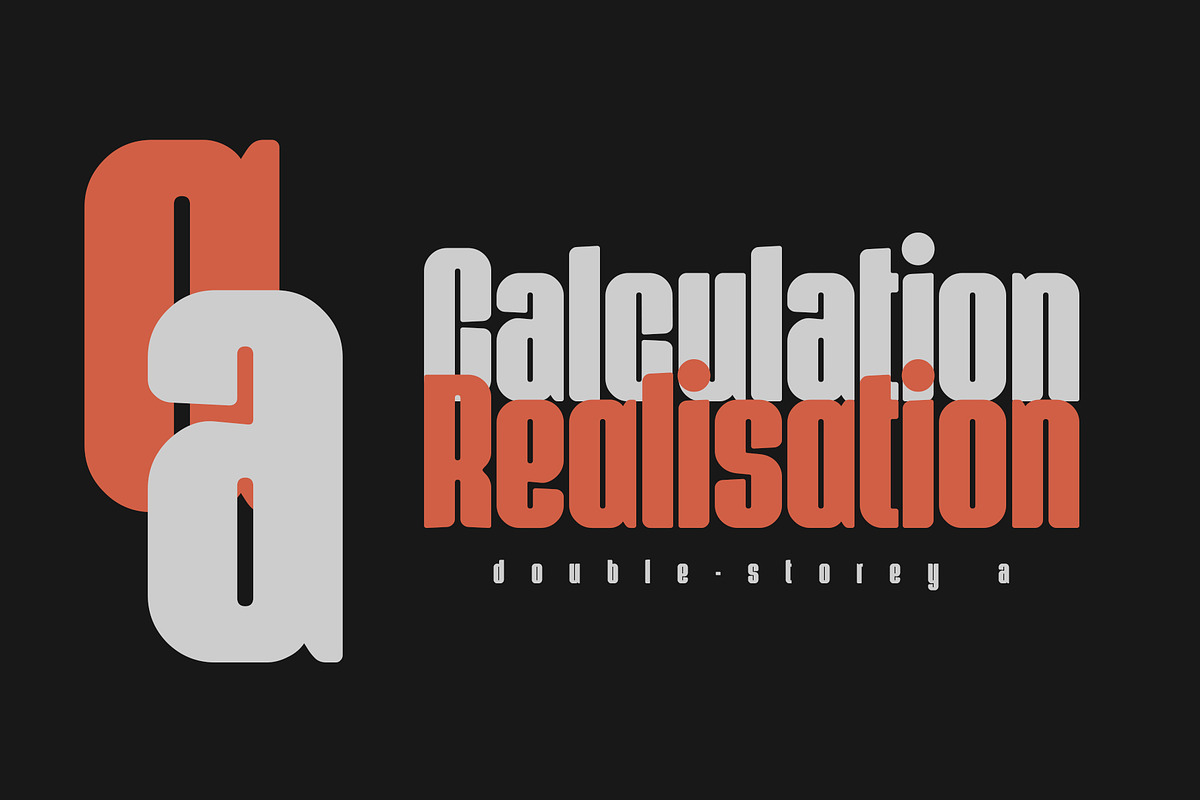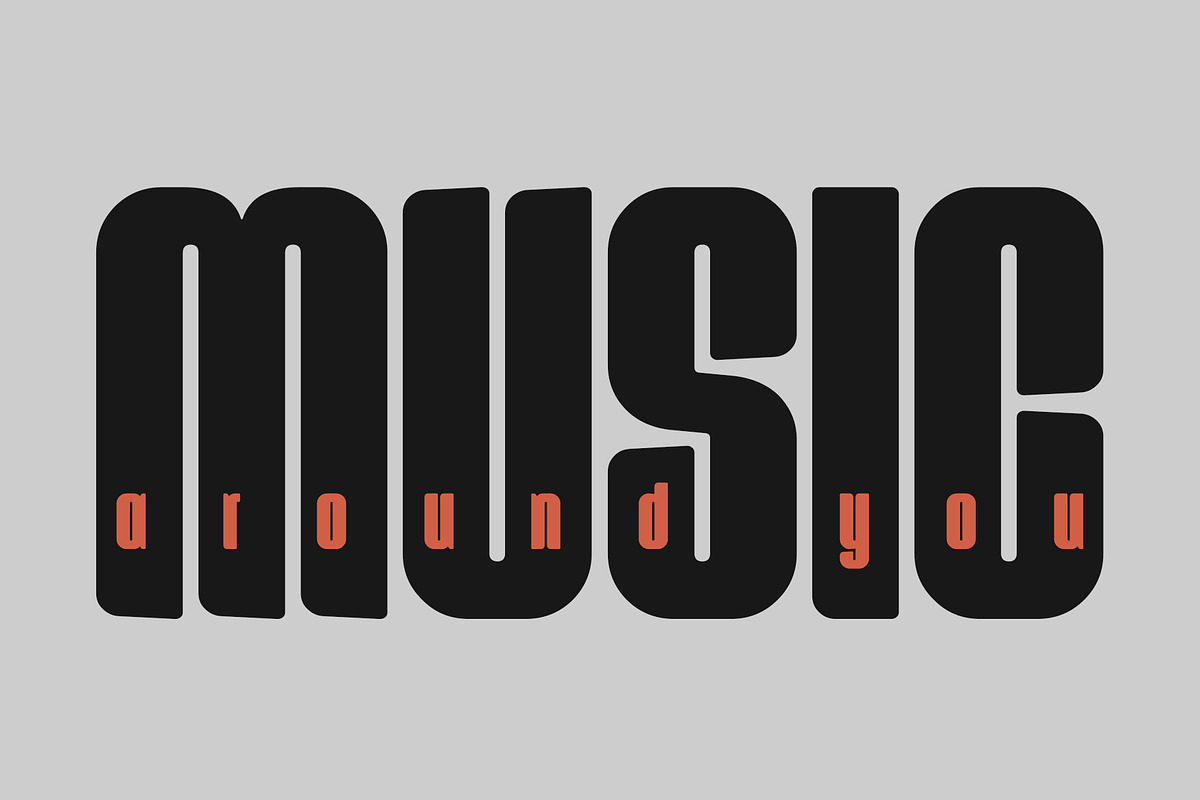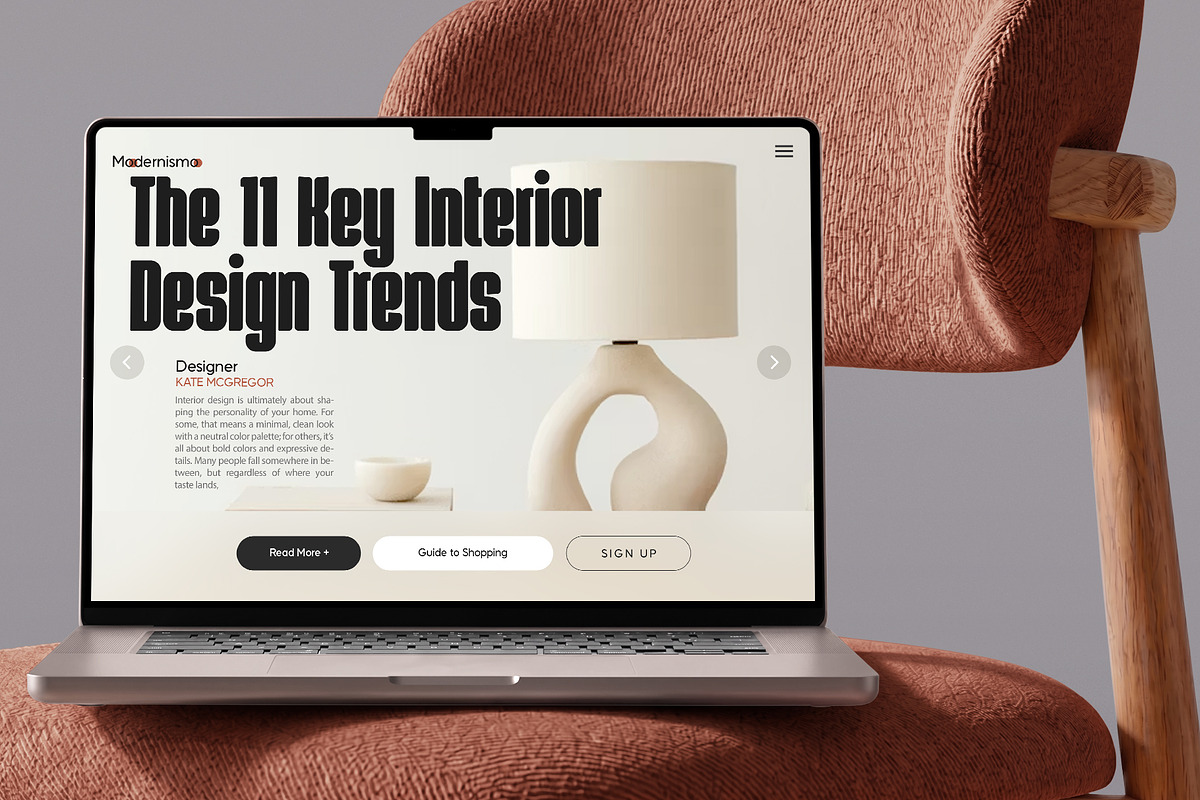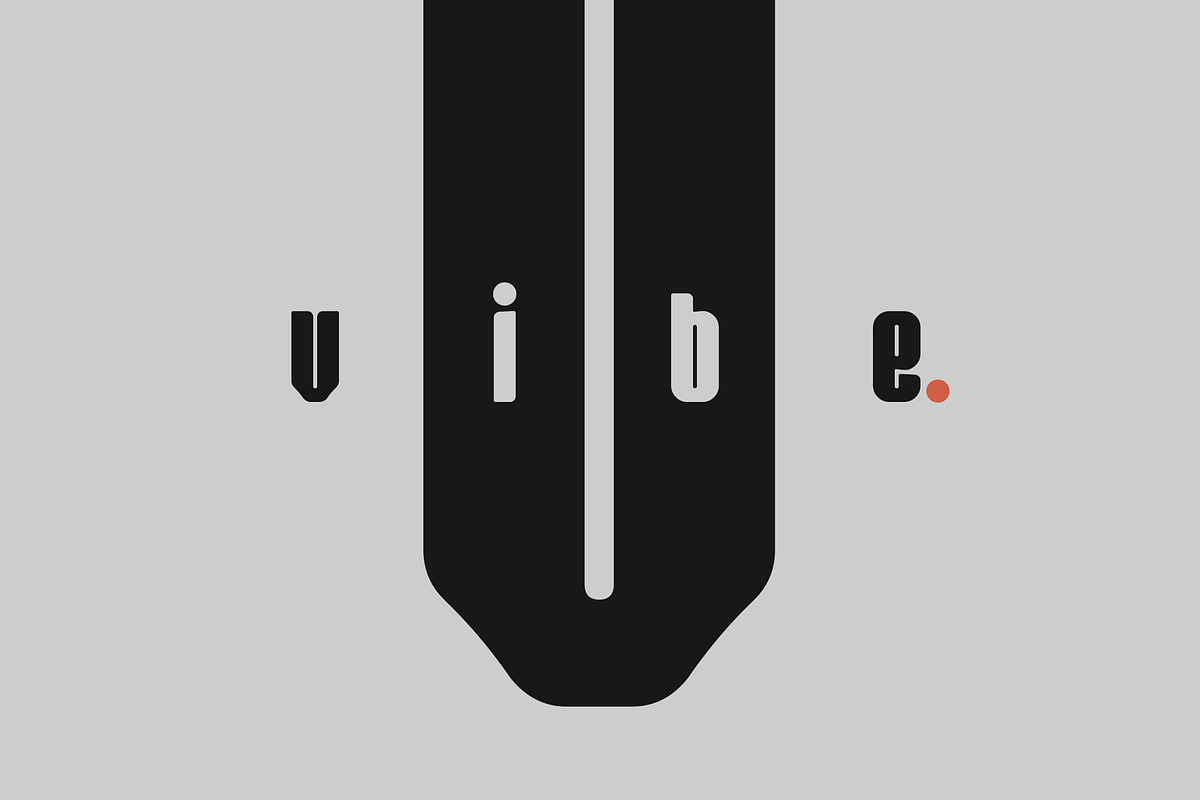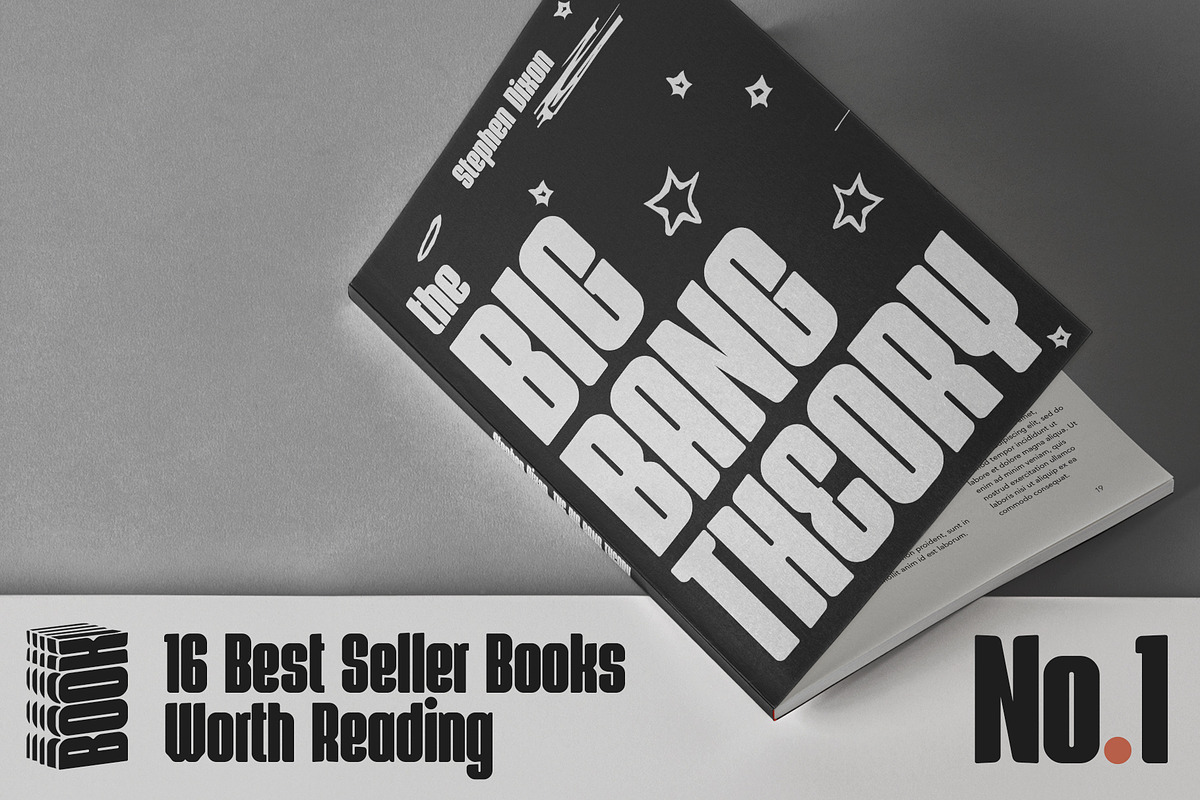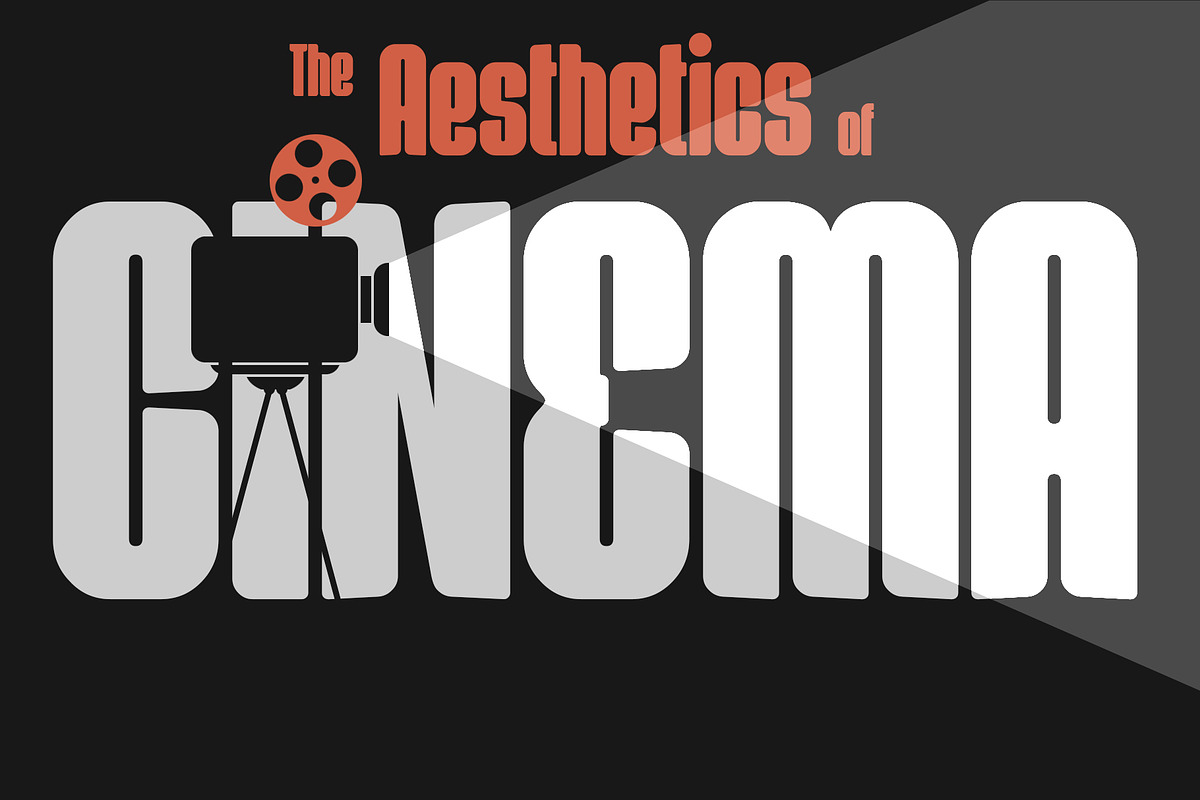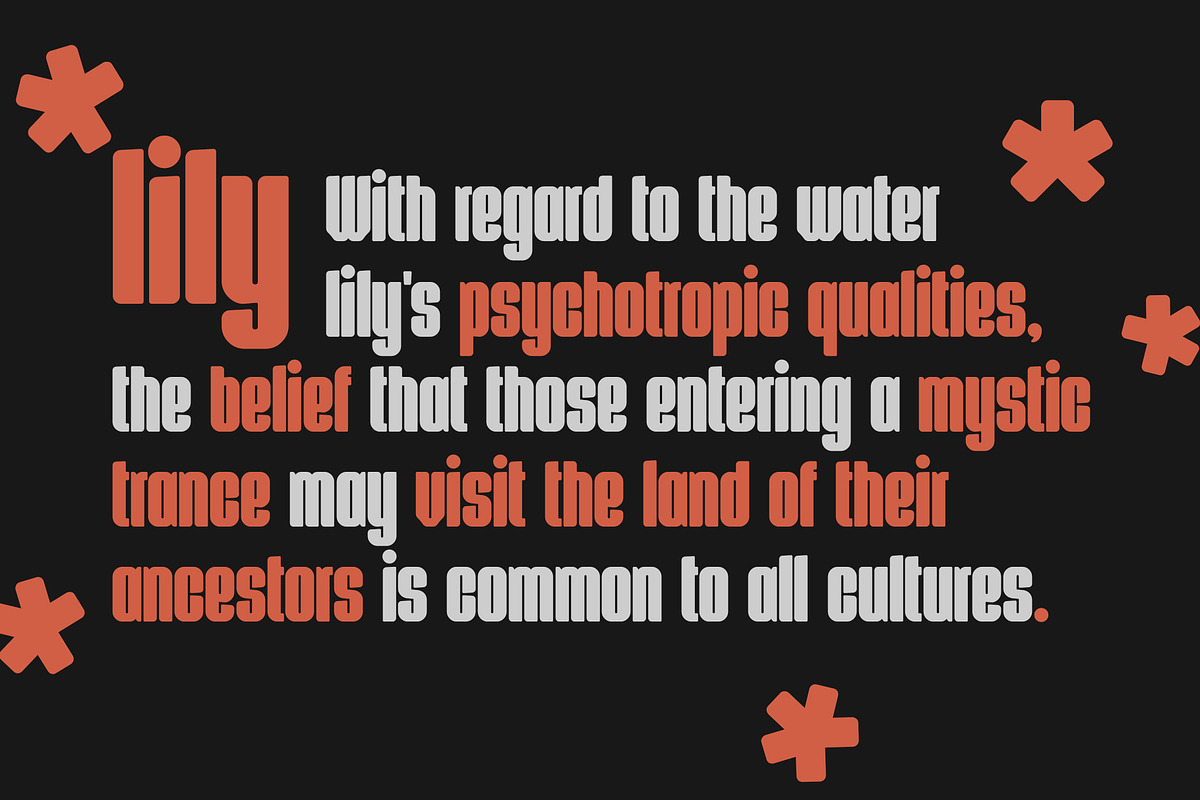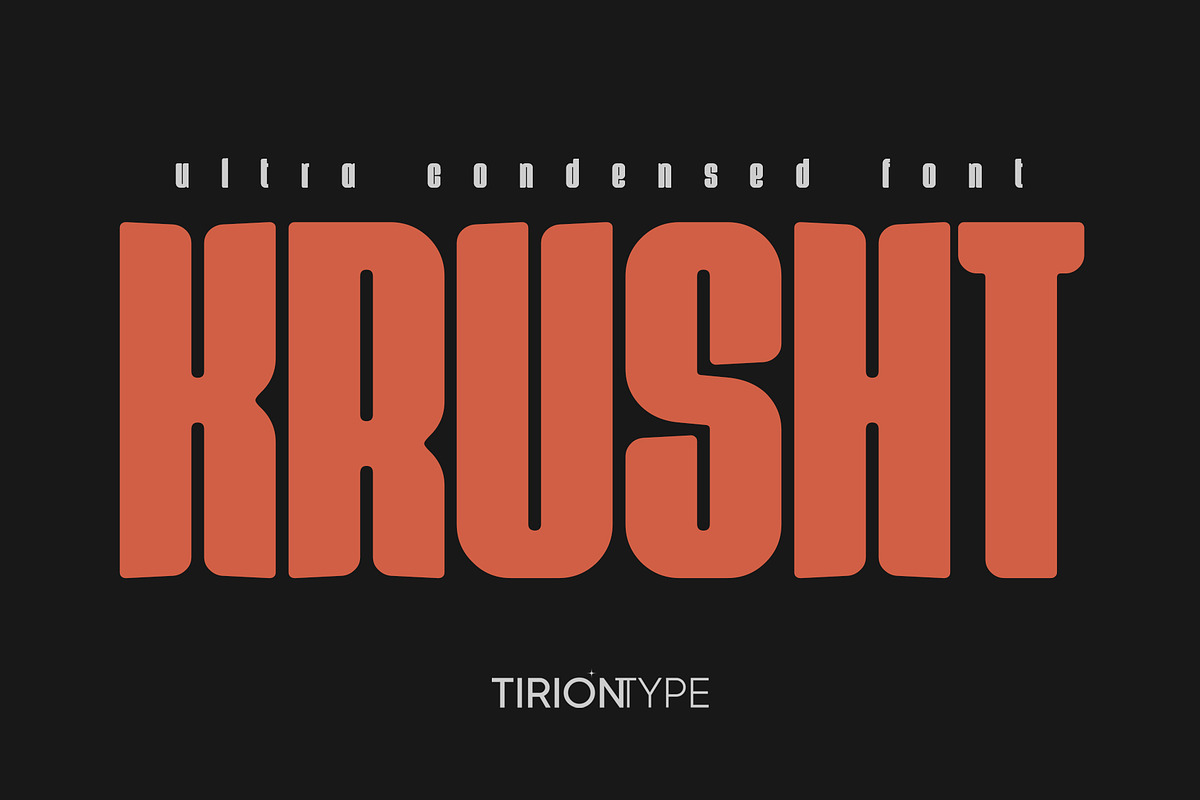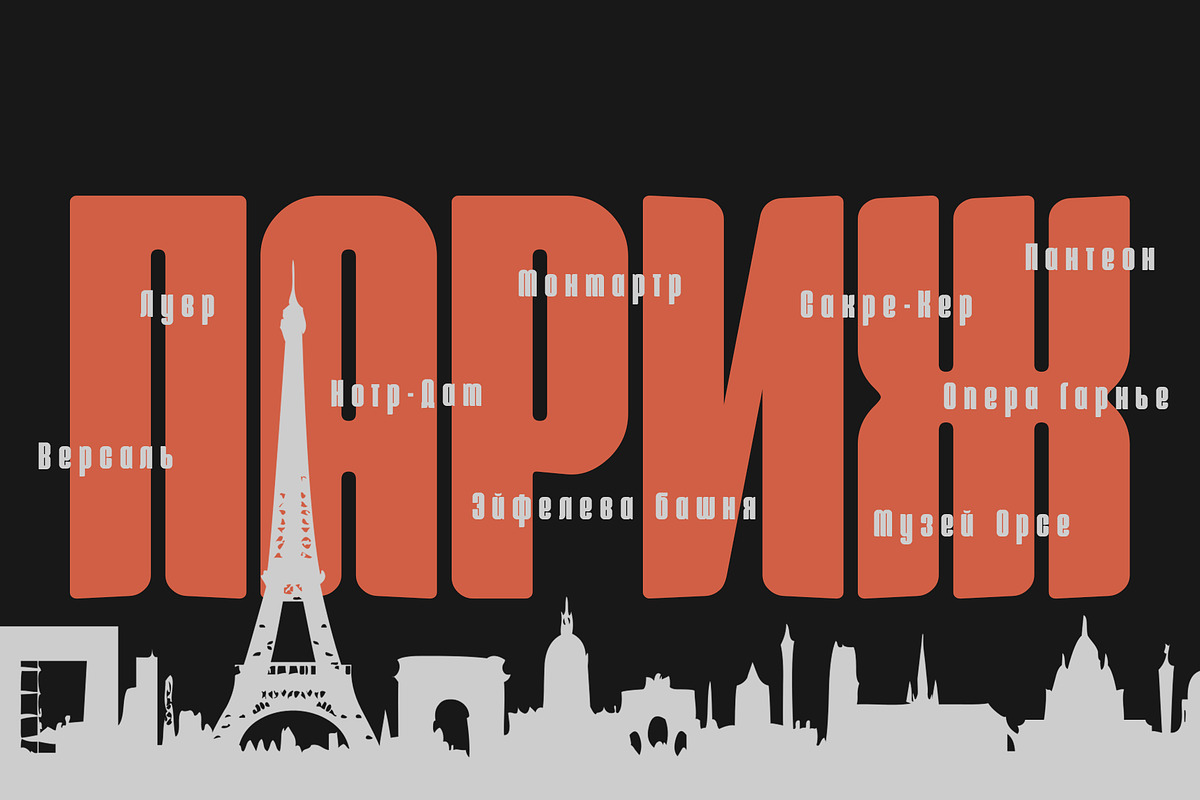
Krusht — Ultra Condensed Font
Krusht — Bold Ultra Condensed Display Font with Rounded Power.
Krusht is a heavy, ultra-condensed sans-serif that crushes space to the absolute limit. With bold blocky forms, soft rounded edges, and letters packed so tightly they almost touch, it delivers massive visual impact in the smallest footprint. The generous curves give it a friendly yet industrial edge — perfect for standing out without feeling harsh.
Ideal for headlines, posters, logos, branding, apparel, tech packaging, and any design that demands maximum presence in minimal width. When you need to scream loud while staying sleek and compact. — Krusht gets the job done.
Krusht is a bold ultra-condensed display typeface with soft rounded corners and extremely tight letterspacing. Its powerful, blocky forms create an intense, modern presence that commands attention even in the tightest spaces.